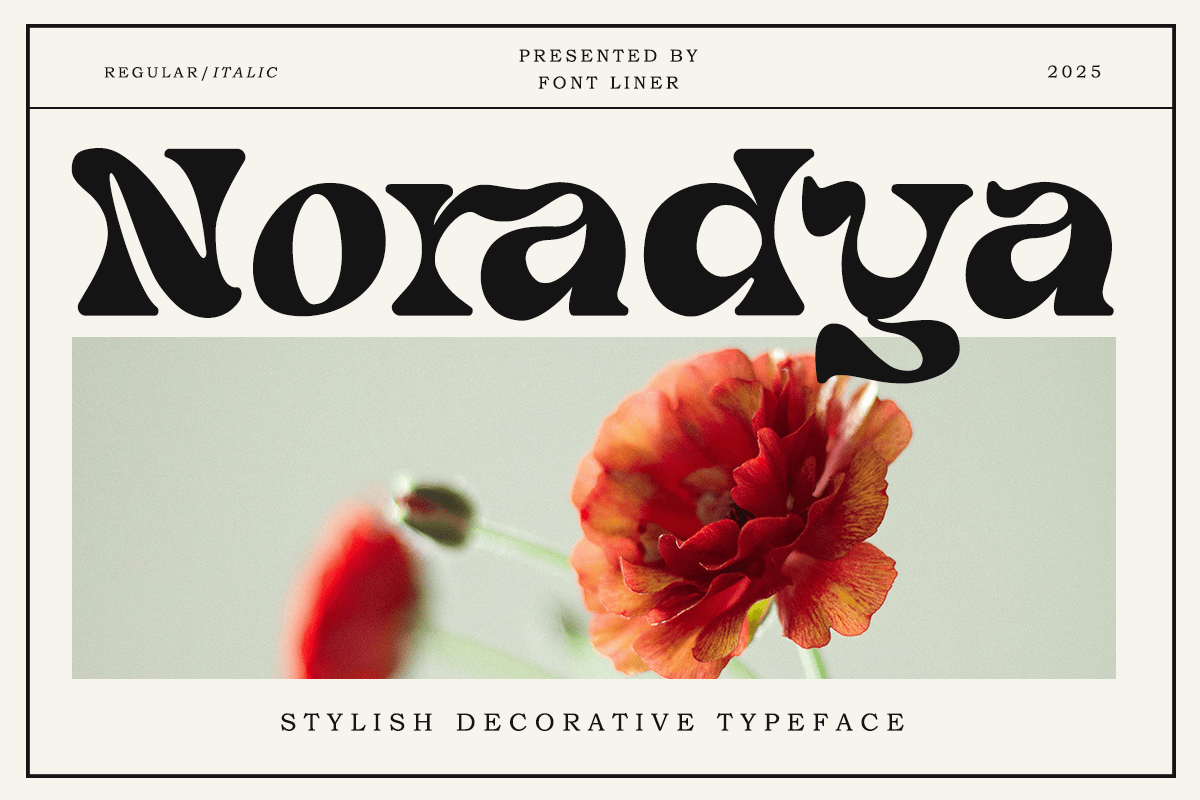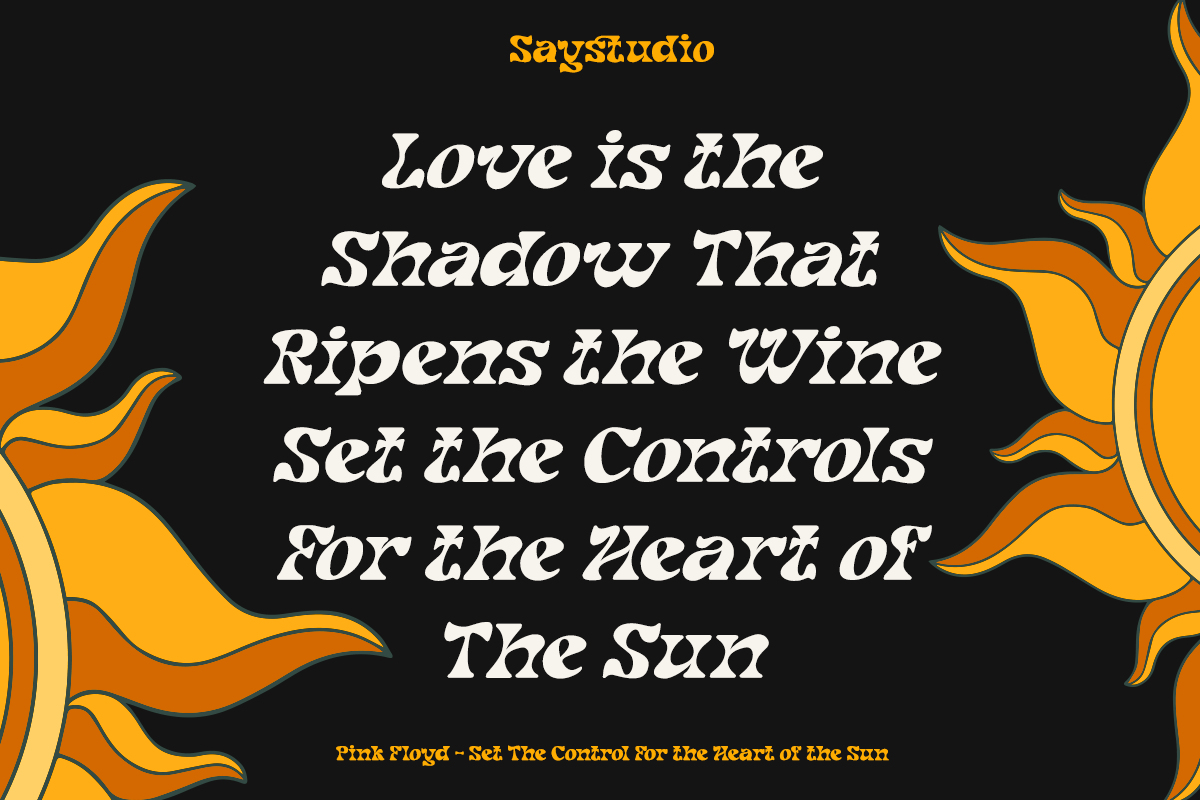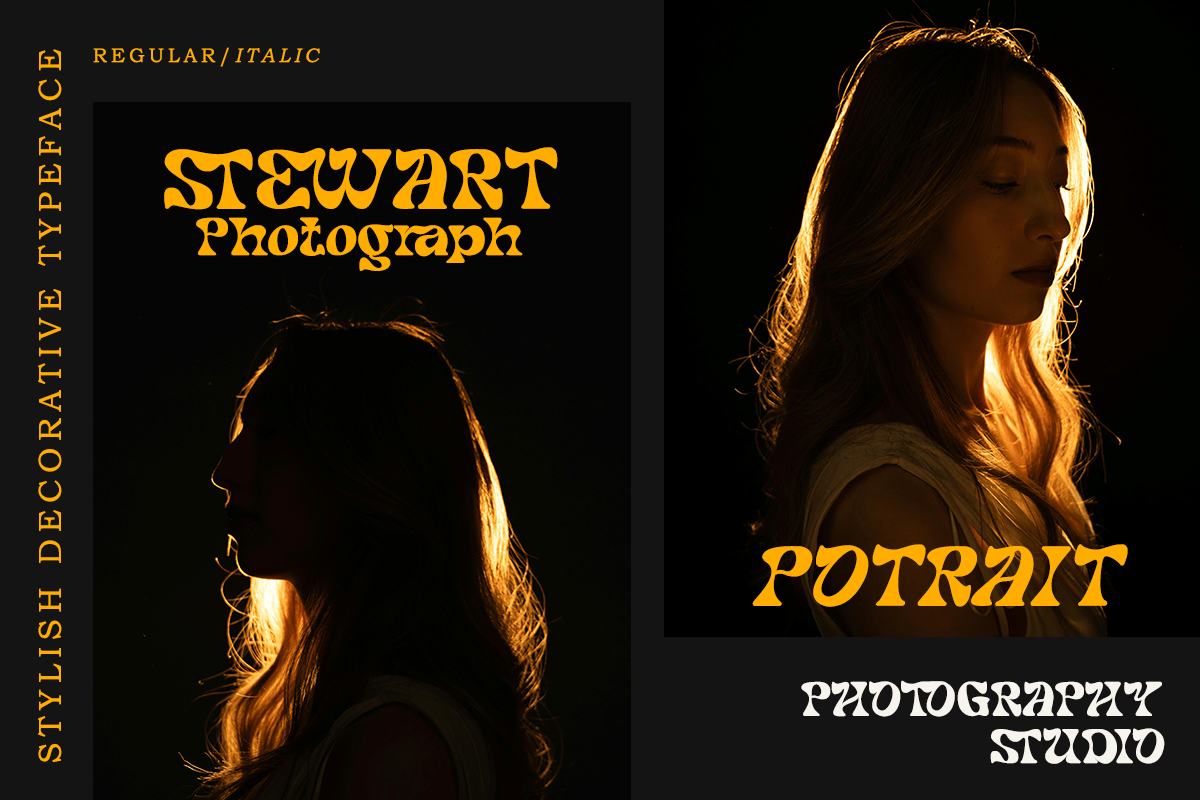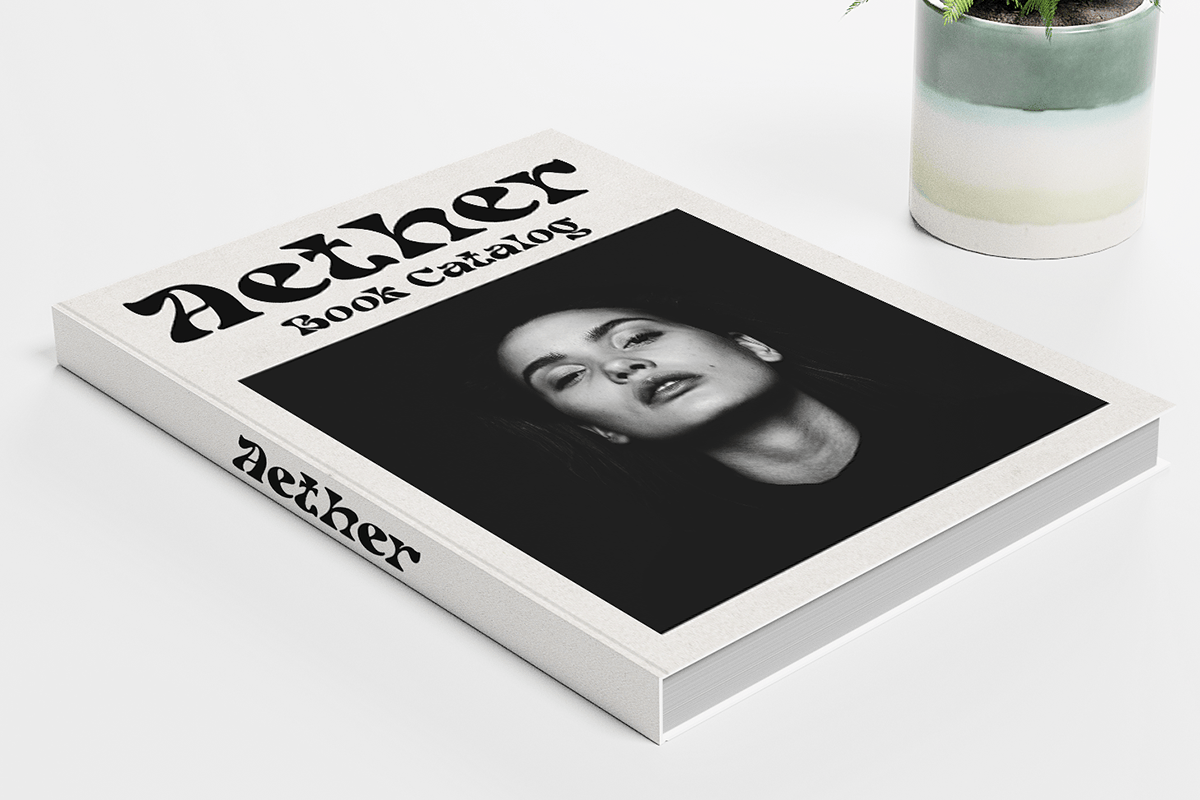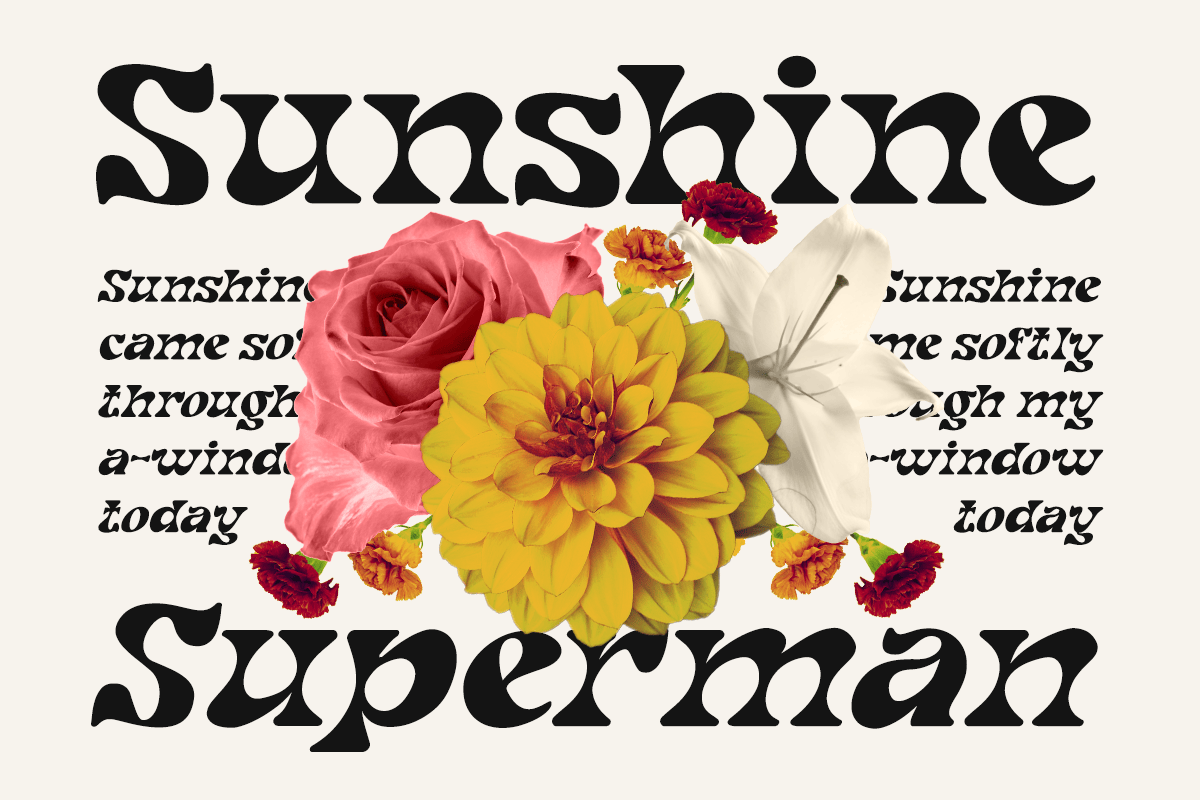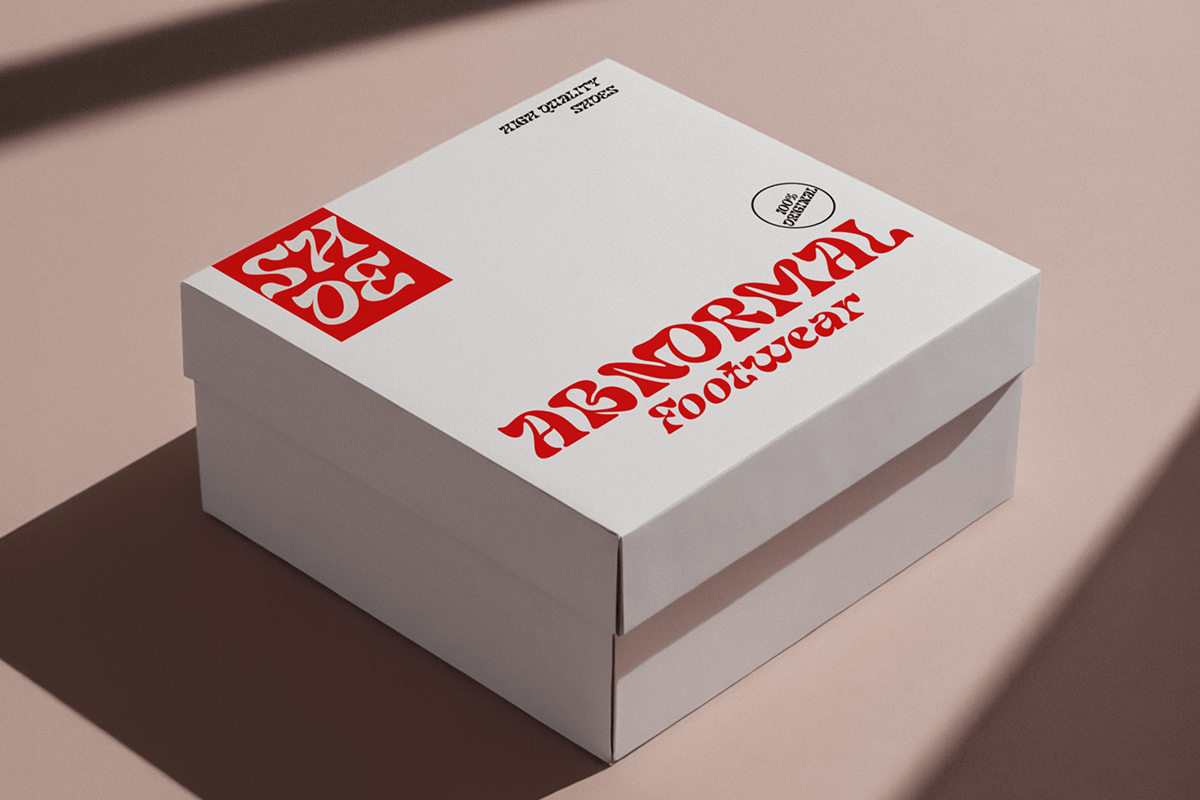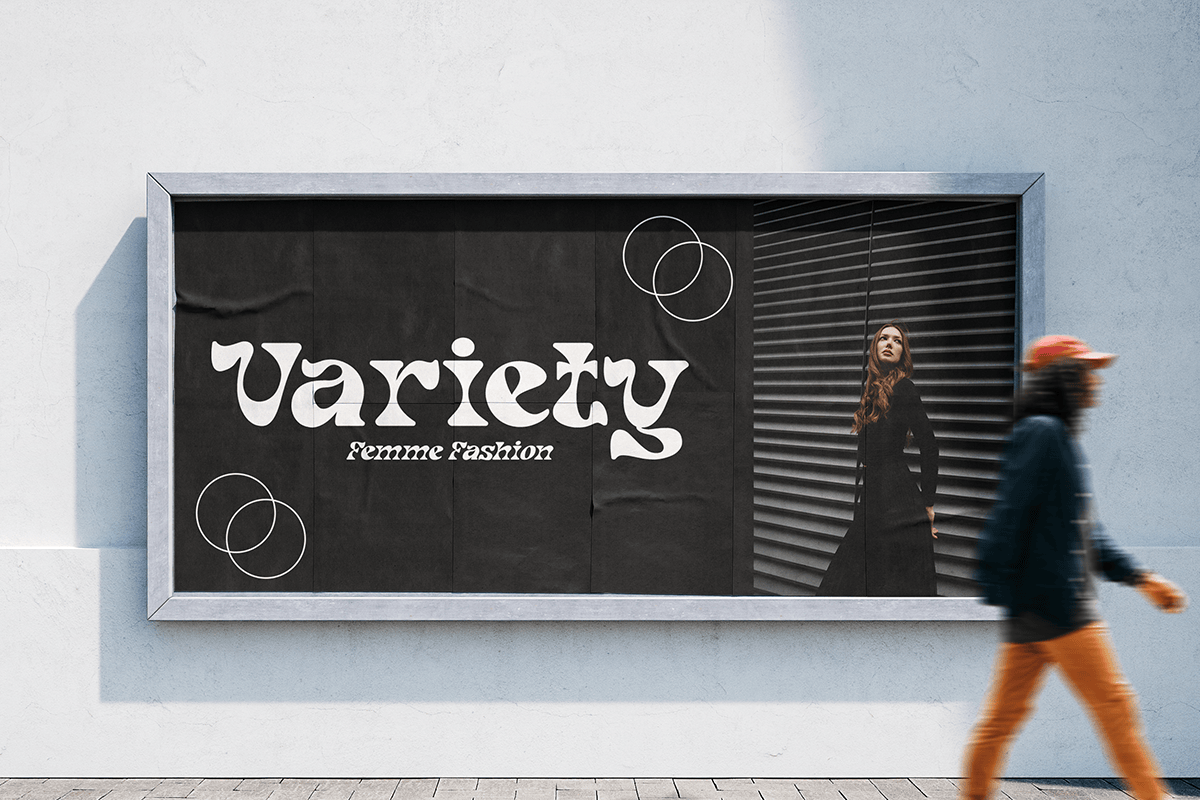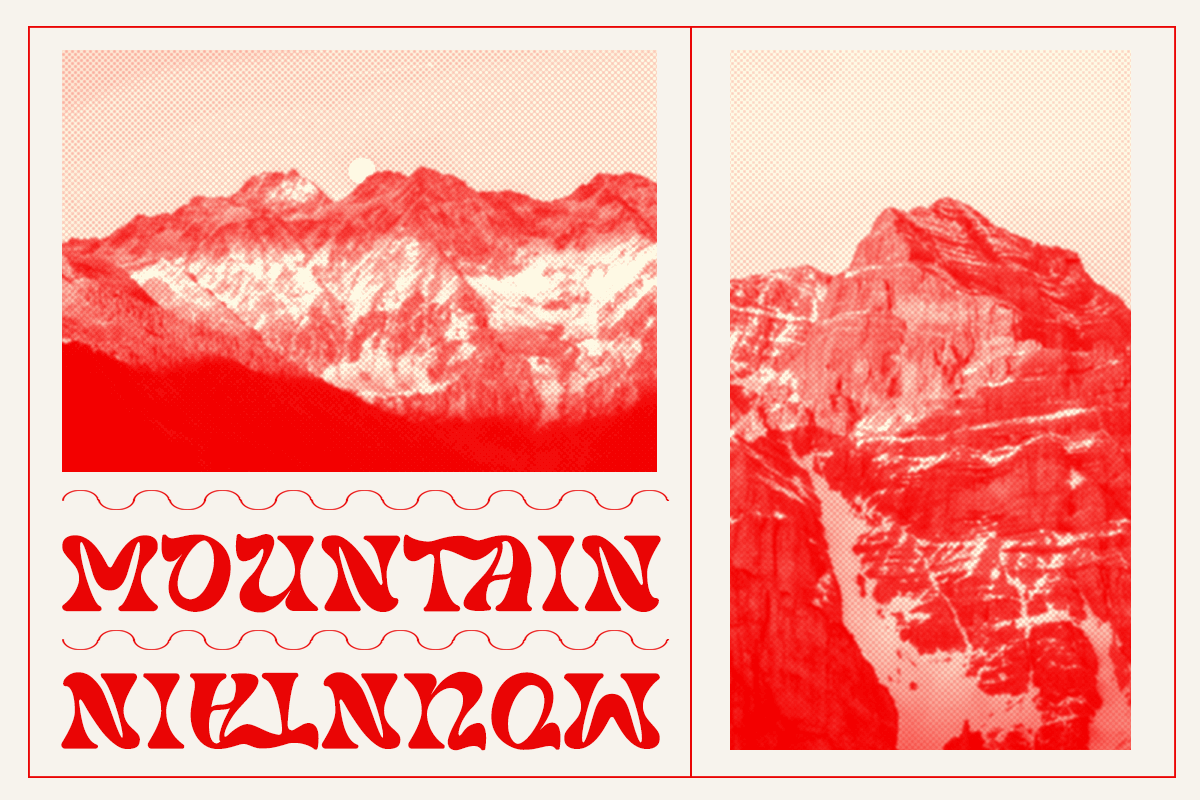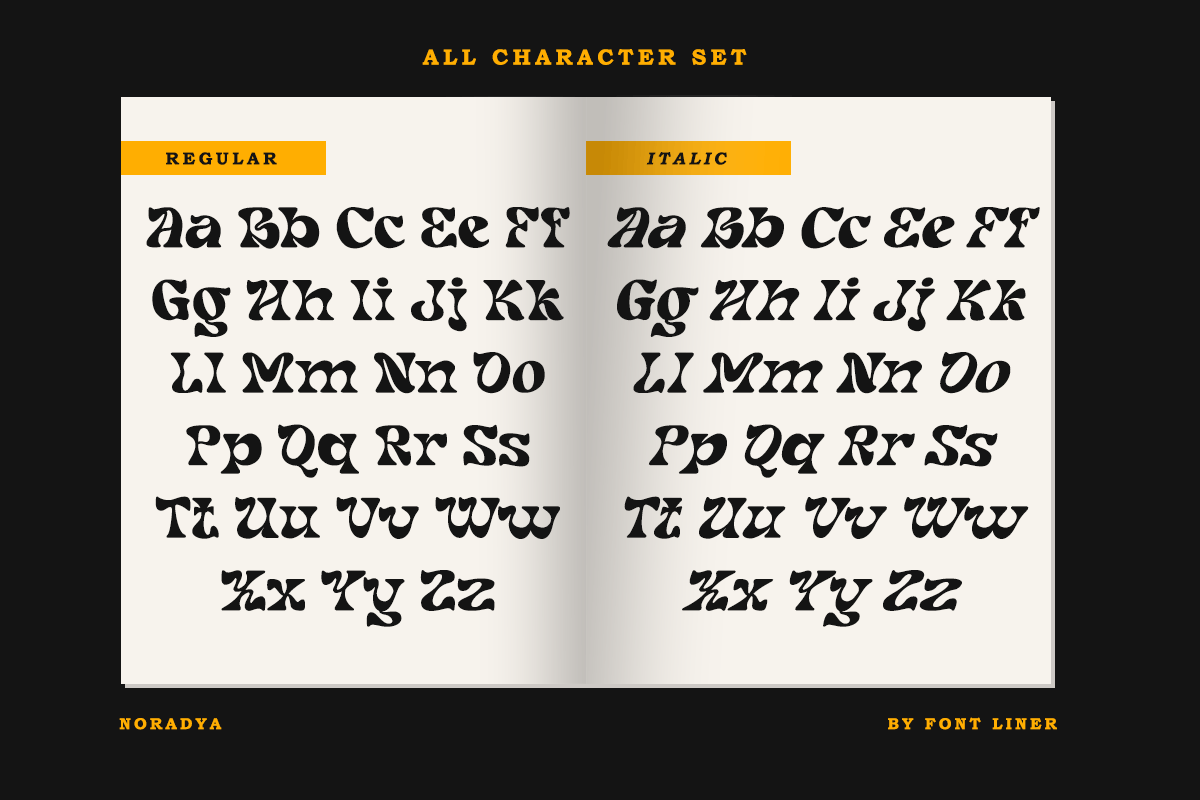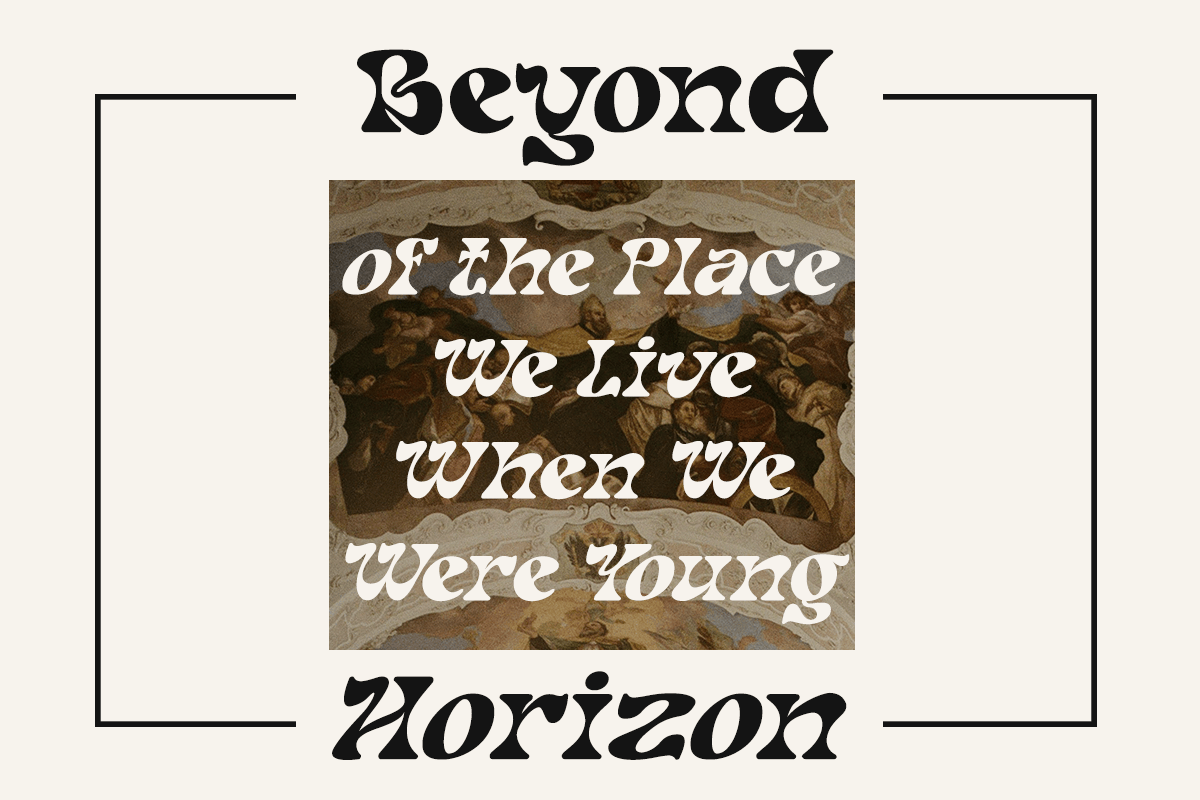
Noradya – Stylish Decorative Typeface
Noradya is a stylish decorative typeface that blends artistic vintage influences with bold contemporary character. Featuring expressive ornamental letterforms, unique curves, and eye-catching alternates, this typeface creates a distinctive visual identity that feels elegant, creative, and unforgettable. Its decorative personality makes Noradya the perfect choice for designers looking to create typography that instantly stands out.
Designed for branding, editorial layouts, fashion campaigns, posters, packaging, magazines, beauty products, photography, music artwork, boutique businesses, luxury products, social media, and premium marketing materials, Noradya delivers striking results across both print and digital media. Whether you’re designing memorable logos, creative headlines, sophisticated packaging, or artistic visual identities, Noradya provides a bold aesthetic with timeless appeal.
Noradya includes regular and italic styles, uppercase and lowercase characters, decorative alternates, multilingual support, numerals, punctuation, and symbols, giving designers complete creative flexibility. From editorial typography and luxury branding to modern packaging and artistic advertising, Noradya is the perfect decorative typeface for projects that demand originality, elegance, and expressive visual impact.
– Stylistic alternates
– Uppercase, Lowercase & Ligatures